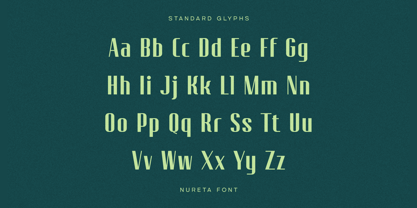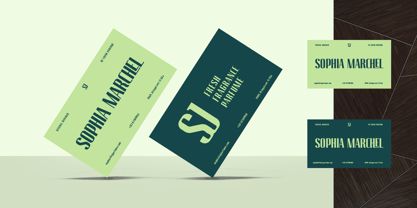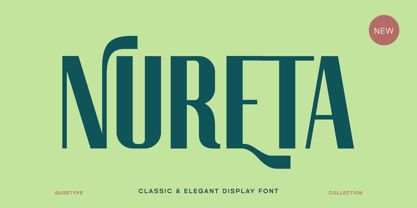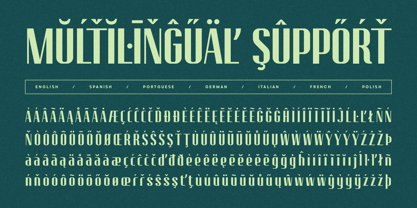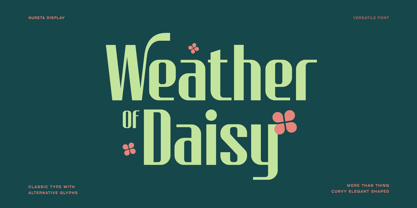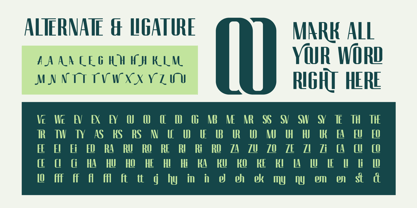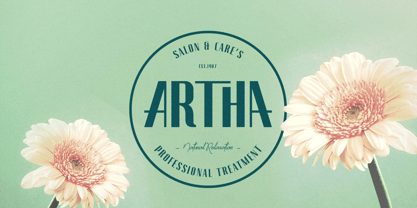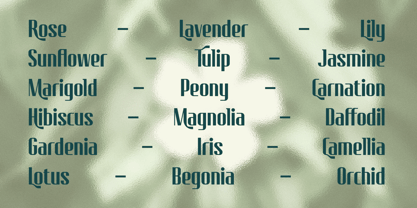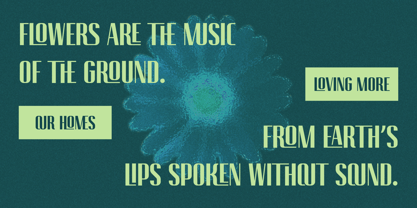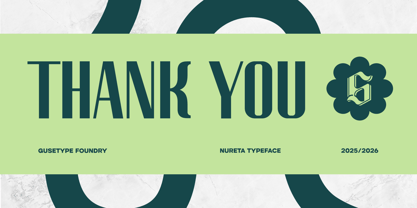
Nureta
Nureta is a refined typeface that beautifully blends elegance with organic charm. Inspired by the natural flow of forms and subtle imperfections found in nature, Nureta delivers a soft yet sophisticated visual experience. Each curve and stroke is thoughtfully crafted to evoke a sense of harmony, warmth, and timeless beauty.
With its graceful structure and fluid character, Nureta is perfect for branding, packaging, editorial design, and any creative project that seeks a balance between luxury and natural aesthetics. It speaks gently but confidently making it ideal for conveying authenticity, femininity, and modern elegance.
Nureta is more than just a font; it’s an expression of organic sophistication.